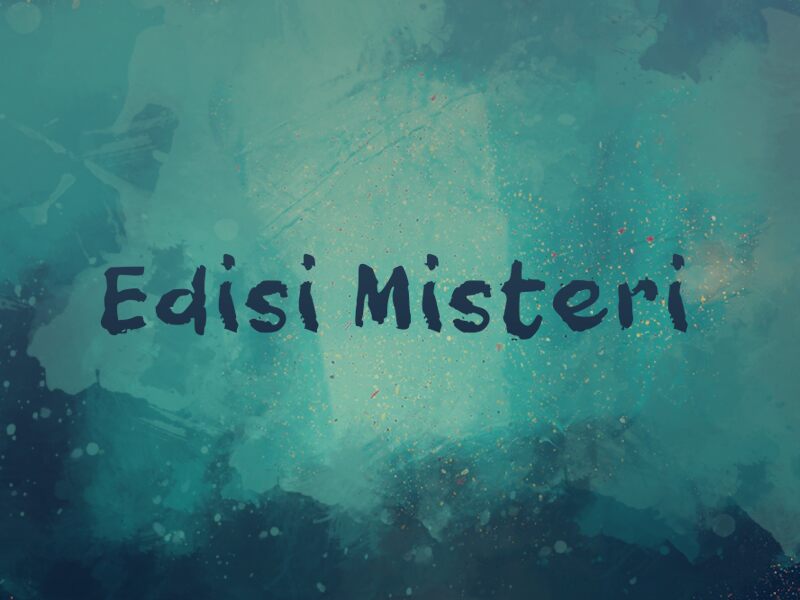
Edisi Misteri
Edisi Misteri, a bold brush font designed by Wahyu Eka Prasetya, is perfect for projects that require an edgy and dynamic look. From poster designs to logos, this font will make your work stand out.